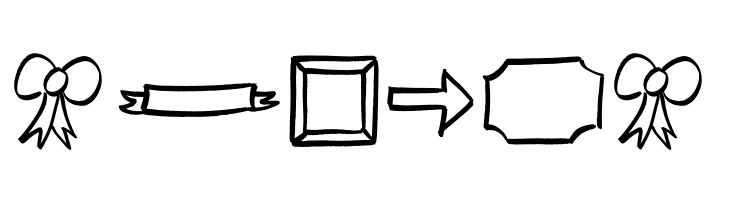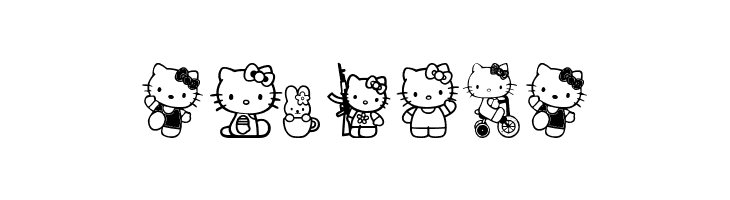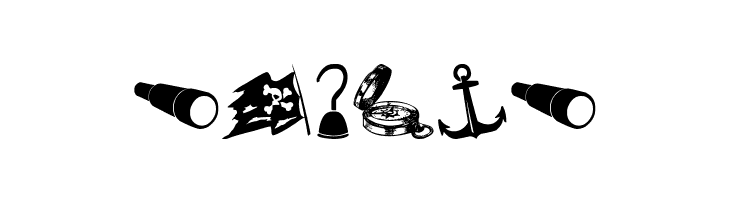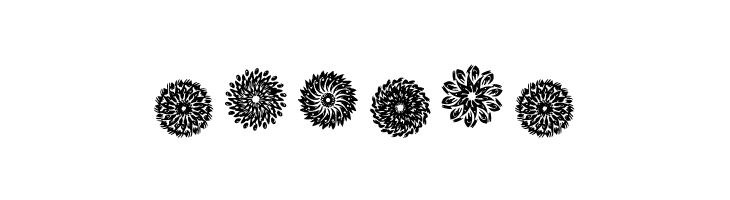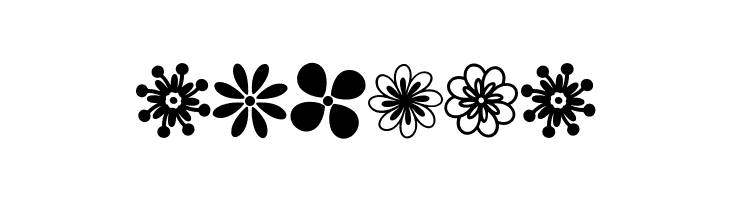
( Fonts by Dmitry Mashkin )
A diverse collection of decorative symbols with intricate patterns and unique designs.
( Fonts by Helotype )
A whimsical set of botanical and floral illustrations with a hand-drawn style.
( Fonts by Jonathan S. Harris )
Hand-drawn, bold brush-style shapes and comic elements.
( Fonts by Jonathan S. Harris )
Hand-drawn doodle shapes and symbols with a whimsical, sketchy style.
( Fonts by Jonathan S. Harris )
Hand-drawn floral illustrations with a whimsical, decorative style.
( Fonts by dcoxy )
Highly decorative ornamental glyphs for borders and embellishments.
Cartoon-themed decorative font with playful outlined character illustrations.
Pirate-themed decorative dingbat font with detailed icons.
( Fonts by Letterayu )
Ornamental dingbat font with mandala and floral motifs.
( Fonts by Letterayu )
A decorative floral dingbat set with varied flower motifs.